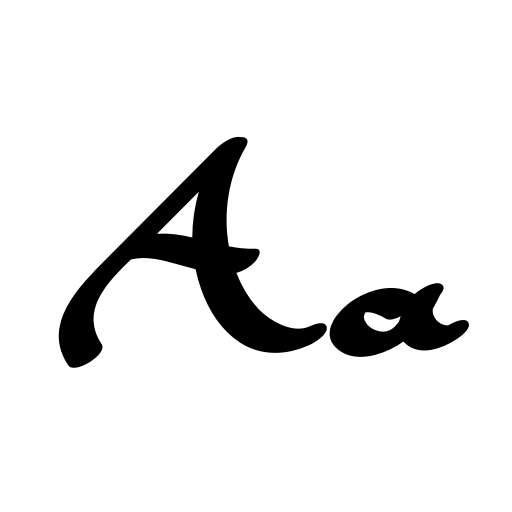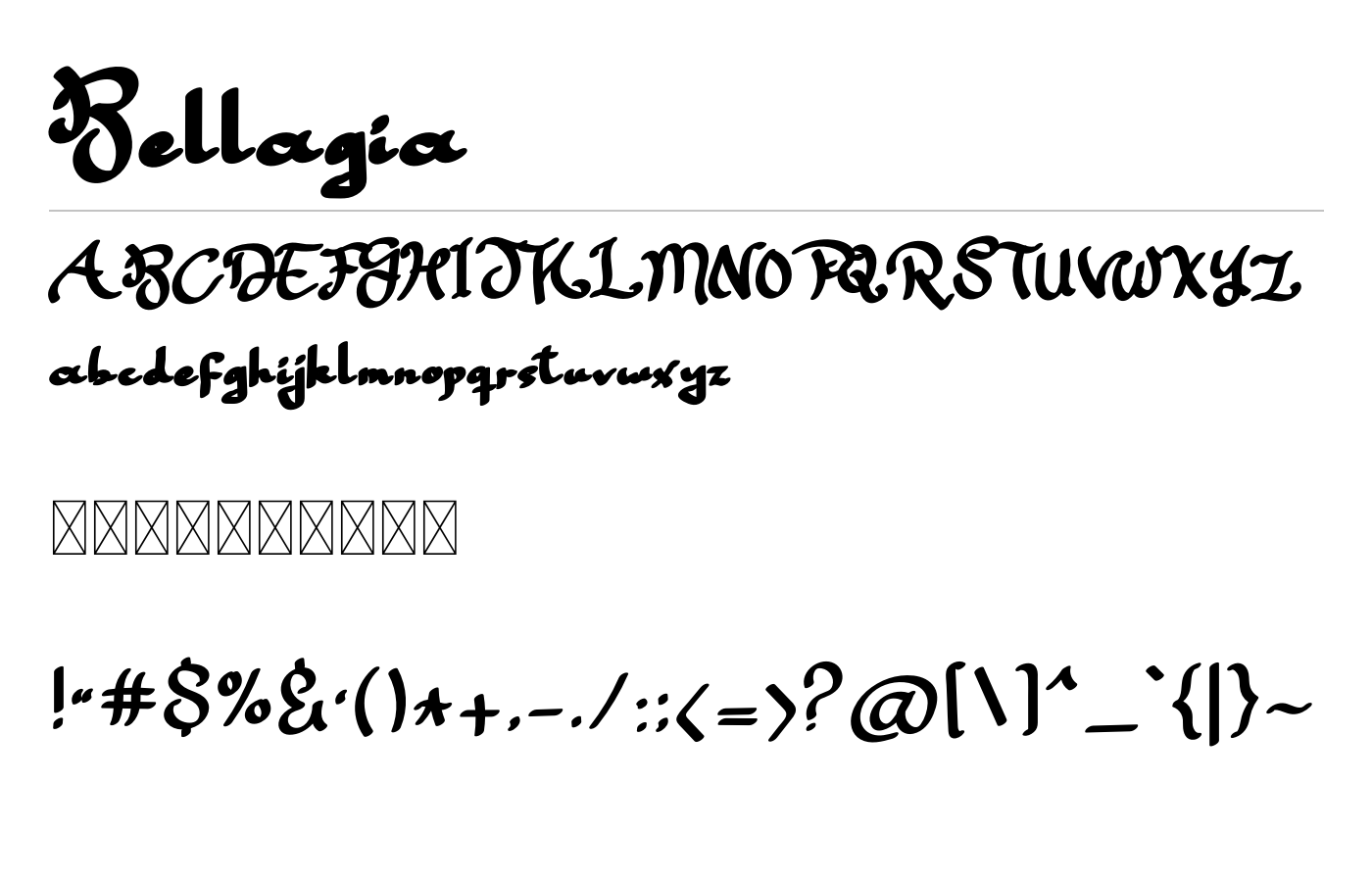
Bellagia is a bold, decorative script font with a playful and artistic feel, featuring thick, brush-like strokes and a dynamic, hand-drawn style. Its lively letterforms and distinctive curves make it ideal for creative branding, invitations, and display uses where a unique and expressive personality is desired. This font works best in designs that need a touch of charm and individuality rather than formal or highly readable text blocks.
Bellagia Font
About Bellagia Font
| Font family | Bellagia Font |
| Designer | Nur Edi Prayitno |